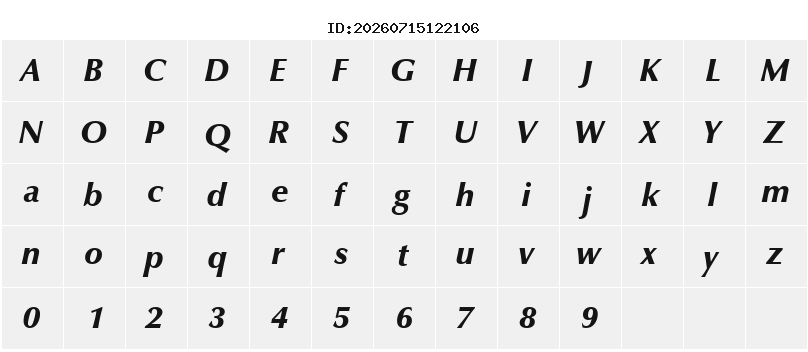
• Font Name: ZapfHumnst Ult BT
• Font Style: Ultra Italic
• Font ID: Zapf Humanist 601 Ultra Italic
• Full Font Name: Zapf Humanist 601 Ultra Italic BT
About ZapfHumnst Ult BT.ttf
ZapfHumnst Ult BT.ttf is a modern, elegant sans-serif font designed for ultimate readability and visual harmony. Perfect for branding, headlines, web design, and print materials.